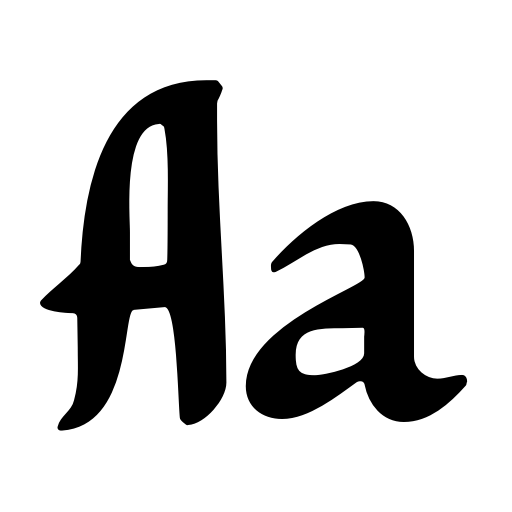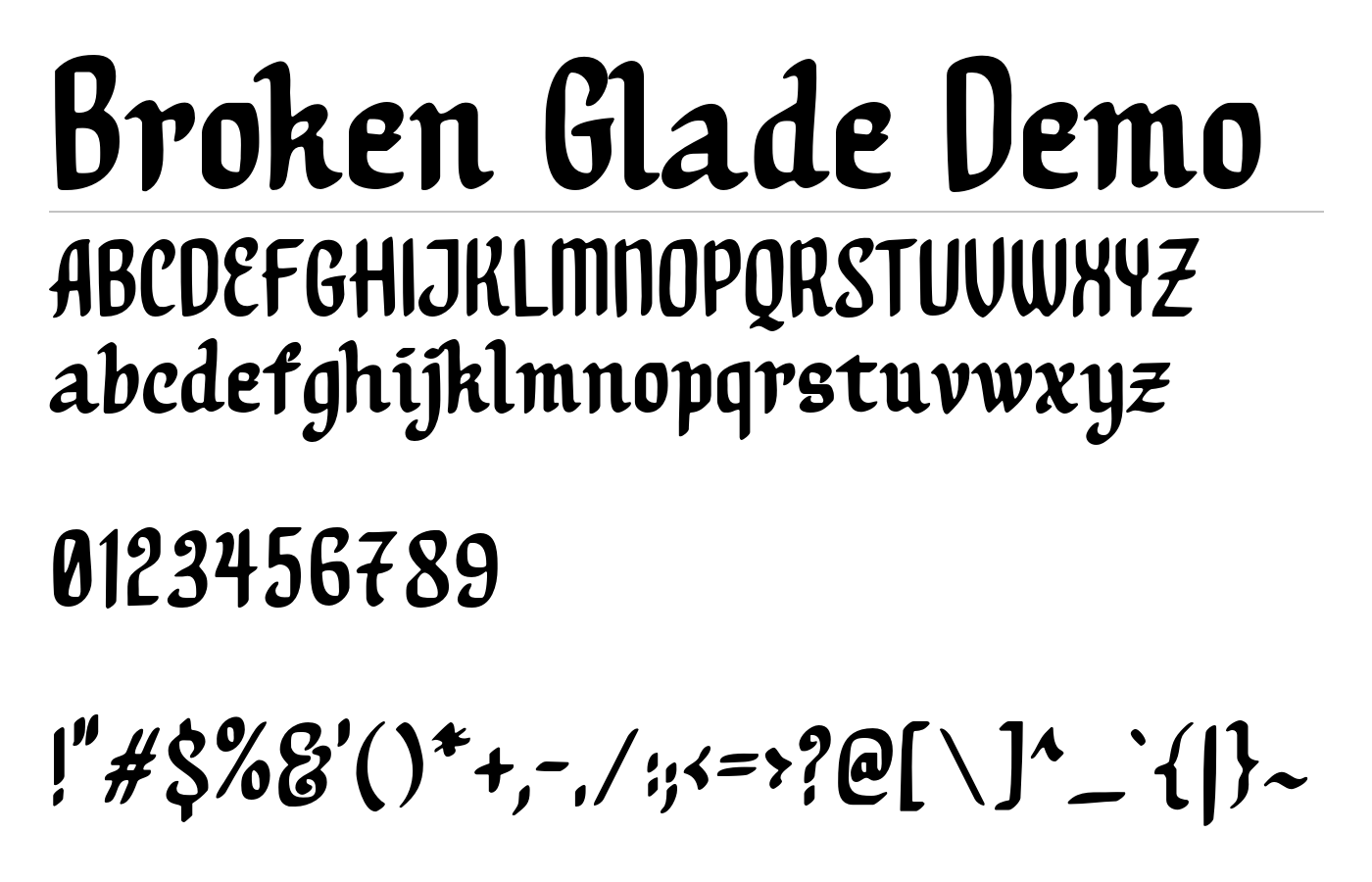
Broken Glade Demo is a distinctive serif font with a vintage flair, featuring bold, slightly condensed letterforms and subtle calligraphic influences. Its high contrast strokes and unique quirks, like the curved terminals and playful shapes, give it a lively, handcrafted feel perfect for eye-catching headlines, logos, and creative branding. This font works well where personality and a touch of nostalgia are desired, adding charm and character to various design projects.
Broken Glade Demo Font
About Broken Glade Demo Font
| Font family | Broken Glade Demo Font |